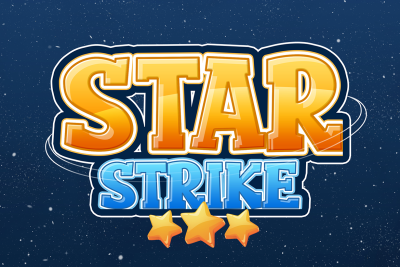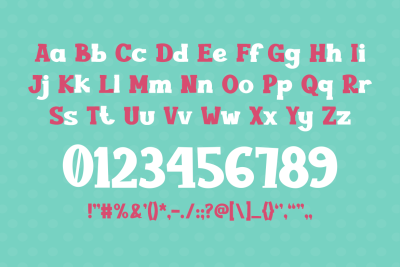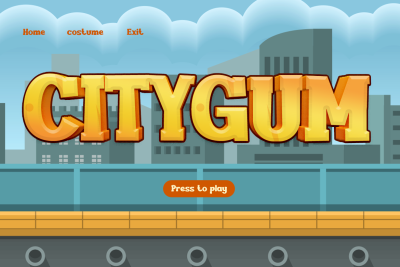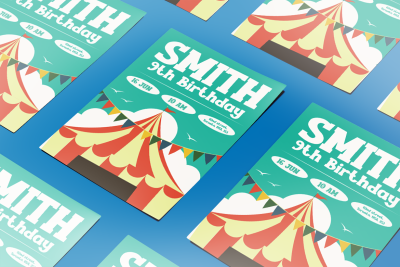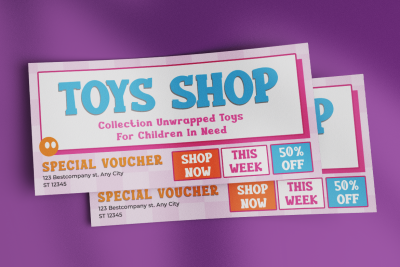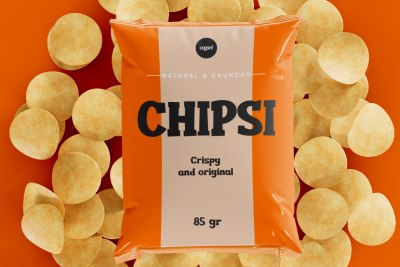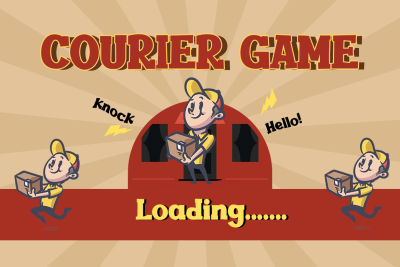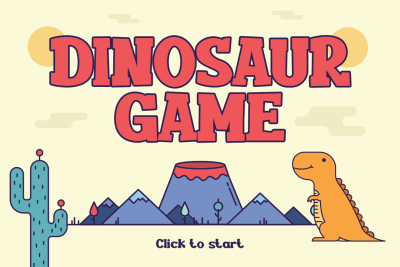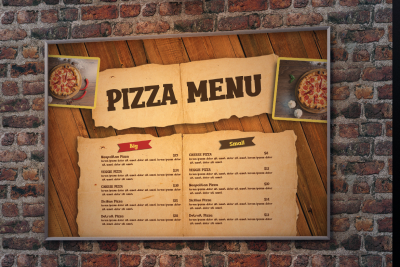
Retro Font Guestar is a vibrant and playful typeface that brings vintage design to life. Moreover, with bold, rounded characters and a cheerful look, this font adds a nostalgic yet fresh touch to your projects. Inspired by mid-20th-century lettering, Retro Font Guestar combines retro charm with modern versatility. Consequently, its thick letterforms, unique character details, and smooth curves deliver visual impact while maintaining excellent legibility.
Use Guestar for titles, logos, banners, or packaging to evoke creativity and positivity. Furthermore, the font pairs beautifully with bright color schemes and playful illustrations. It is perfect for designs that captivate and delight audiences. Additionally, with uppercase and lowercase letters, impeccable alignment, and multilingual support, the typeface adapts to diverse design needs. Retro Font Guestarโs adaptability makes it a valuable addition to any designerโs toolkit.
Retro Font Guestar is ideal for designers, marketers, and creators seeking energy and personality in their projects. In particular, its retro-modern style appeals to small business owners, startup brands, and content creators in industries like childrenโs products, entertainment, lifestyle, and food. Therefore, you can design for toy stores, casual eateries, or quirky YouTube channels with ease using this font. It also works well for branding projects that aim to stand out with a unique, nostalgic edge.
For educators, Guestar enhances playful learning materials, such as activity books or interactive presentations for kids. Similarly, event organizers can use it for eye-catching posters and invitations for themed parties, festivals, or retro-inspired gatherings. Additionally, it can be a fun choice for merchandise designs, giving T-shirts, mugs, and tote bags a lively and nostalgic look.
Social media influencers and content creators can craft captivating posts, thumbnails, or banners with Retro Font Guestar. As a result, its bold and cheerful aesthetic helps attract and retain viewers. Overall, this font speaks to audiences who enjoy nostalgic and energetic designs, making it a great choice for memorable projects. Whether you are working on digital or print designs, Retro Font Guestar offers the versatility and charm needed to make your work stand out.